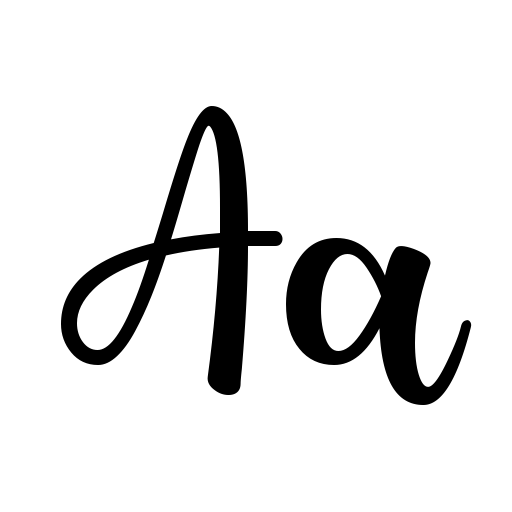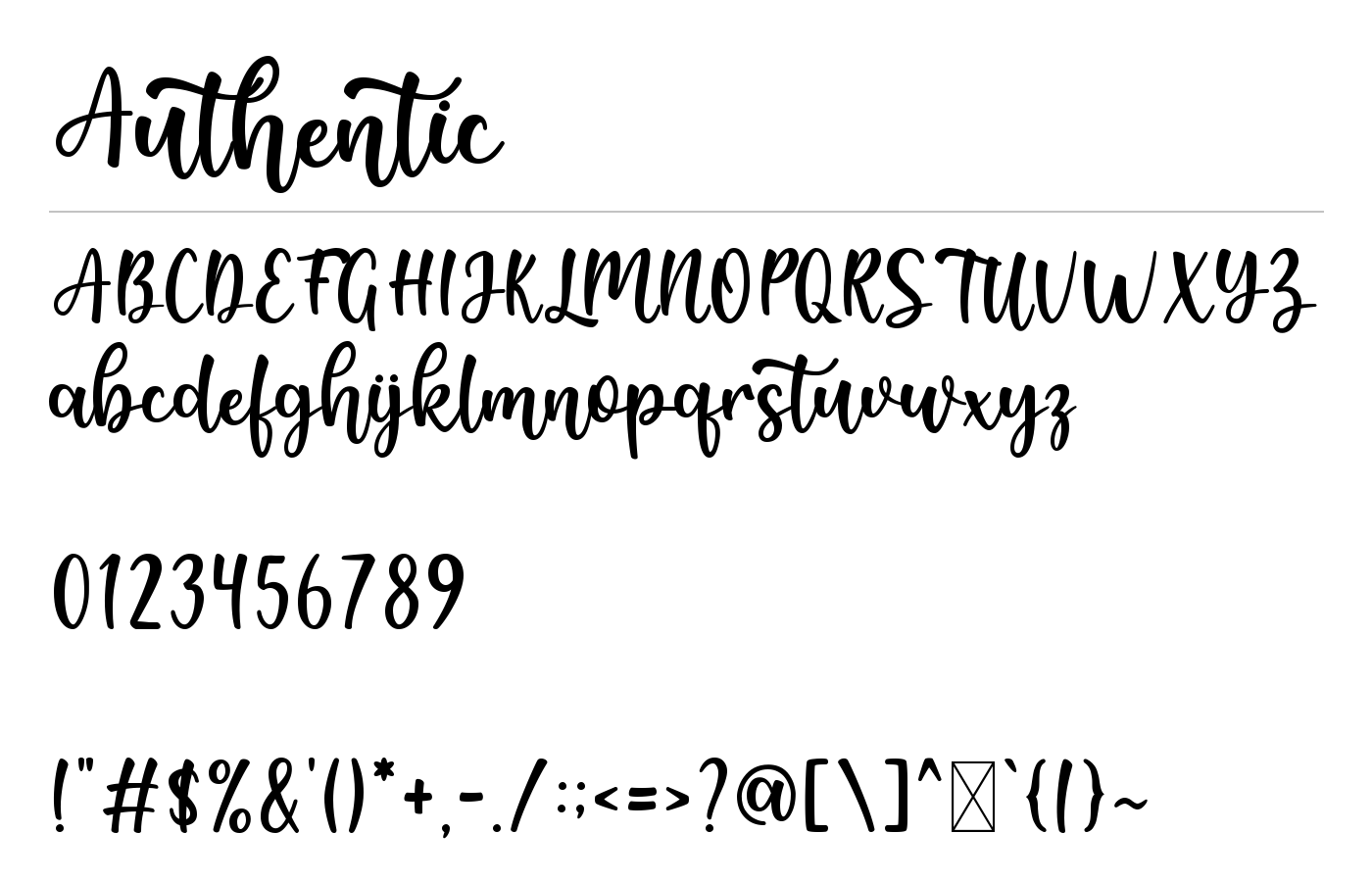
Authentic Font is a lively and elegant script typeface characterized by its flowing, handwritten style with moderate stroke contrast and smooth, rounded edges. It features a casual yet refined look with distinctive swashes and curls, making it ideal for branding, invitations, and creative projects that seek a personal, approachable touch. This font works well for headlines and display uses where a warm, friendly, and authentic vibe is desired.
Authentic Font
About Authentic Font
| Font family | Authentic Font |